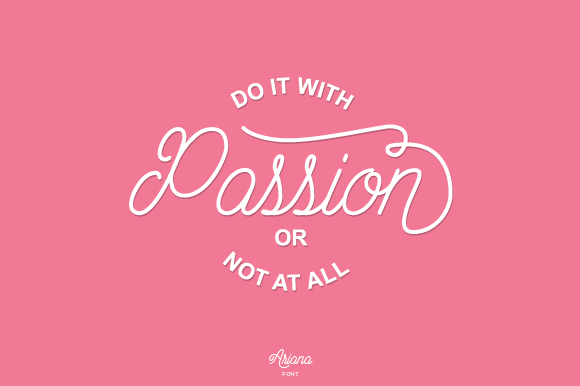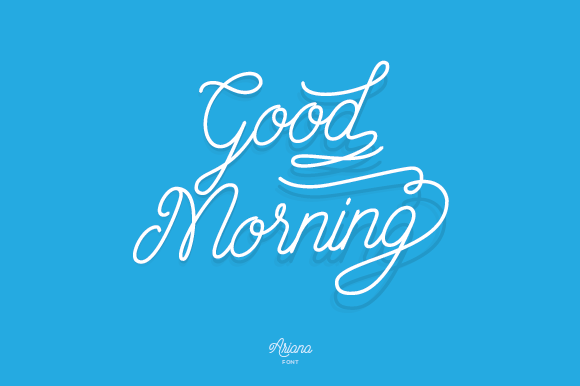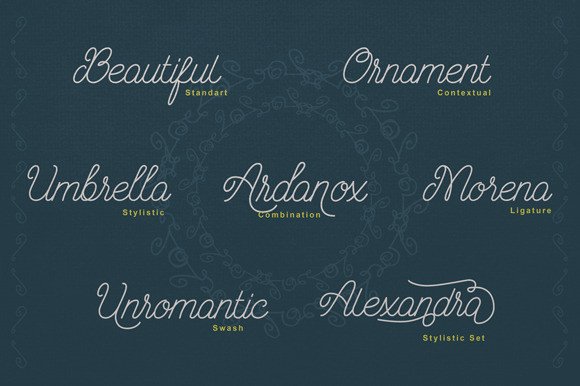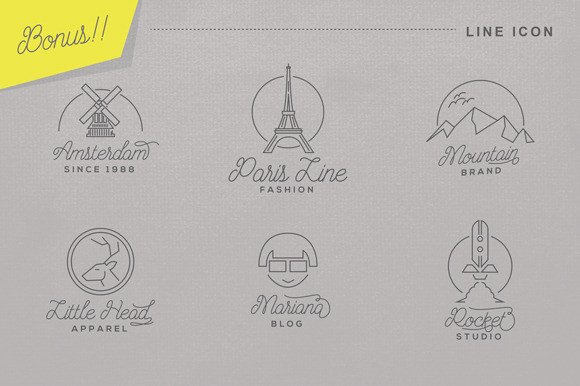
I still remember the frustration of working on a logo design project for a client’s wedding invitation suite. I had the perfect concept, the ideal color palette, and a clear vision of how I wanted it to look. But, I was stuck on one thing: the font. I scrolled through my font library, but nothing seemed to fit the elegant and playful vibe I was going for. That’s when I stumbled upon Ariana Script, a beautiful mono-line script typeface that instantly captured the essence of the project.
An Honest Review of Ariana Script
• ✨ Elegant and modern design that’s perfect for logos, wedding invitations, and greeting cards
• ✅ Highly versatile and can be used for various design projects, from posters to social media graphics
• 💫 Beautifully crafted with attention to detail, making it a joy to work with
While Ariana Script is an amazing font, there are a few things to keep in mind:
• ⚠️ Some users have reported issues with kerning, so it’s essential to adjust the spacing to ensure optimal readability
• 🤔 The font might not be the best choice for body text or long paragraphs, as it’s designed primarily for display purposes
3. Experiment with OpenType features, such as ligatures and stylistic alternates, to add personality to your design
The Story Behind Ariana Script
Ariana Script was designed with the intention of creating a beautiful, modern script font that captures the essence of elegance and sophistication. The designer aimed to craft a font that’s highly versatile and can be used for various design projects, from logos to wedding invitations.
Font Name Ariana Font
Author Ian Mikraz
Q: What is Ariana Script?
Ariana Script is a mono-line script typeface designed for display purposes. It’s perfect for logos, wedding invitations, greeting cards, posters, and more.
Q: Is Ariana Script suitable for body text?
While Ariana Script is a beautiful font, it’s primarily designed for display purposes. It might not be the best choice for body text or long paragraphs.